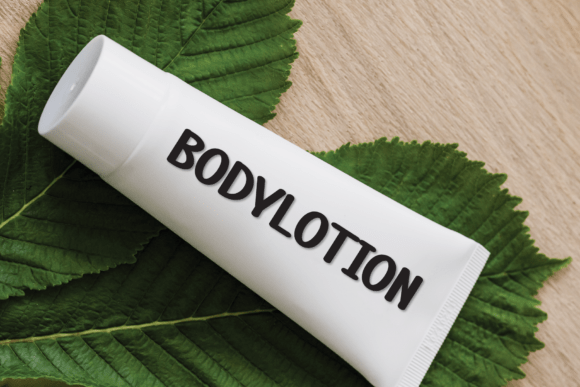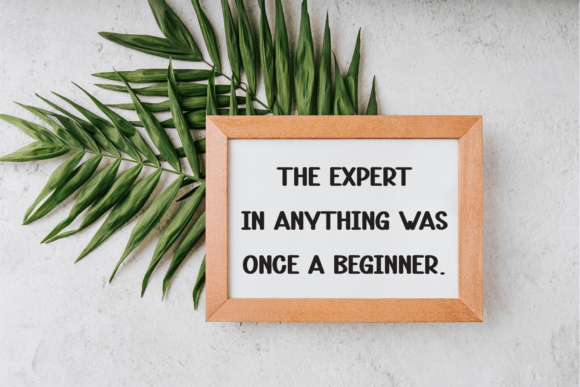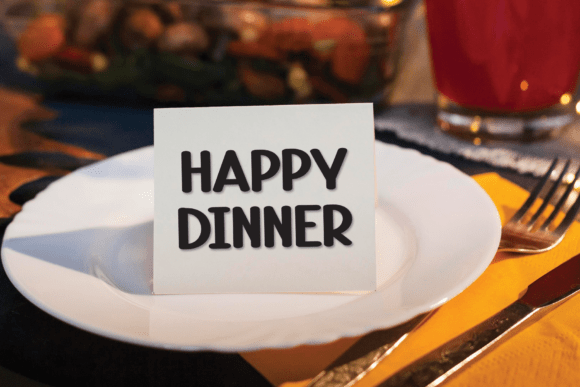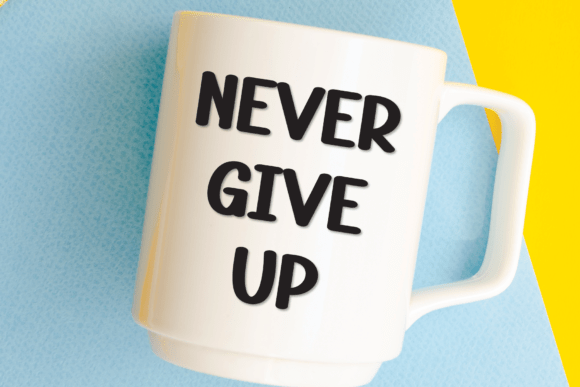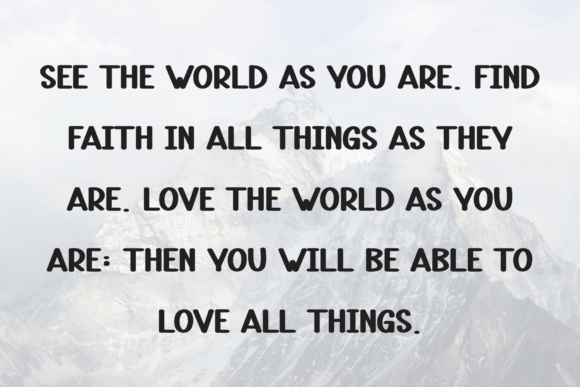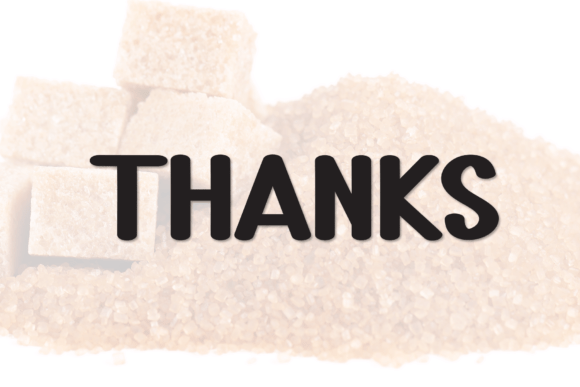
Add a Dash of Sweetness to Your Designs with Brown Sugar Font
Are you looking for a font that can add a touch of warmth and personality to your creative projects? Look no further than the Brown Sugar font, a delightful “Playful Style Font” that’s sure to make your designs stand out. With its thick, rounded letterforms and soft, hand-lettered feel, this typeface is perfect for designs that need to be approachable and full of charm.
The Characteristics of Brown Sugar Font
The Brown Sugar font is built for maximum friendliness, offering a “bold and bubbly” presence that’s impossible to ignore. Its heavyweight and clean outlines ensure that it remains highly legible, making it ideal for a wide range of design applications. Whether you’re creating catchy headlines for bakery menus, custom stickers for planners, or vibrant social media quote graphics, this font is sure to make your designs pop.
Ideal Uses for Brown Sugar Font
The Brown Sugar typeface is a superstar for food and beverage branding, children’s apparel, and casual lifestyle content. Its playful and approachable style makes it perfect for designs that need to appeal to a wide audience. Here are just a few ideas for using the Brown Sugar font:
- Bakery menus: Add a touch of sweetness to your bakery menus with the Brown Sugar font. Its bold and bubbly style is sure to make your menu items stand out.
- Custom stickers: Create custom stickers for planners, journals, and other craft projects with the Brown Sugar font. Its playful style is sure to add a touch of personality to any design.
- Social media graphics: Use the Brown Sugar font to create vibrant social media quote graphics that are sure to grab attention.
- T-shirt heat transfers: The Brown Sugar font is perfect for t-shirt heat transfers. Its bold and clean style ensures that your designs will be highly legible even on a busy t-shirt.
- Birthday banners: Create a custom birthday banner with the Brown Sugar font. Its playful style is sure to add a touch of excitement to any celebration.
Tips for Using Brown Sugar Font
To get the most out of the Brown Sugar font, try pairing it with simple, organic illustrations to create a cohesive “handmade” look. This font is perfect for designs that need to have a personal touch, and the right illustrations can help to enhance its playful style. Here are a few tips for using the Brown Sugar font:
- Keep it simple: The Brown Sugar font is perfect for designs that need to be approachable and easy to read. Keep your design simple and uncluttered to ensure that your message gets across.
- Experiment with colors: The Brown Sugar font is perfect for designs that need to be bright and colorful. Experiment with different colors to find the perfect combination for your design.
- Use it with texture: The Brown Sugar font has a soft, hand-lettered feel that’s perfect for designs that need to have a tactile feel. Try using it with texture to add depth and interest to your design.
Why Choose Brown Sugar Font?
There are many fonts to choose from, but the Brown Sugar font stands out for its unique combination of playfulness and legibility. Here are just a few reasons why you might choose the Brown Sugar font for your next design project:
- Unique style: The Brown Sugar font has a unique style that’s sure to make your designs stand out. Its thick, rounded letterforms and soft, hand-lettered feel make it perfect for designs that need to be approachable and full of personality.
- Highly legible: The Brown Sugar font is highly legible, even at small sizes. This makes it perfect for designs that need to be easy to read, such as menus, signs, and banners.
- Versatile: The Brown Sugar font is versatile and can be used for a wide range of design applications. Whether you’re creating a bakery menu or a social media graphic, this font is sure to be a great choice.
In conclusion, the Brown Sugar font is a delightful “Playful Style Font” that’s sure to add a touch of sweetness to your designs. With its thick, rounded letterforms and soft, hand-lettered feel, this typeface is perfect for designs that need to be approachable and full of personality. Whether you’re creating a bakery menu, custom stickers, or vibrant social media quote graphics, the Brown Sugar font is sure to make your designs stand out. So why not give it a try and see the difference it can make in your designs?